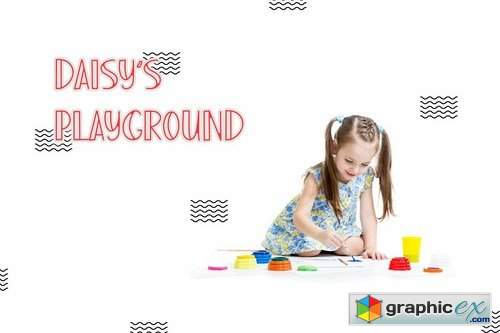
Adelah Display Font
Adelah Display Font 5069128
Adelah Display Font is a playful handwritten font, fit for Kids Font, can make your text appear excited, and modern!